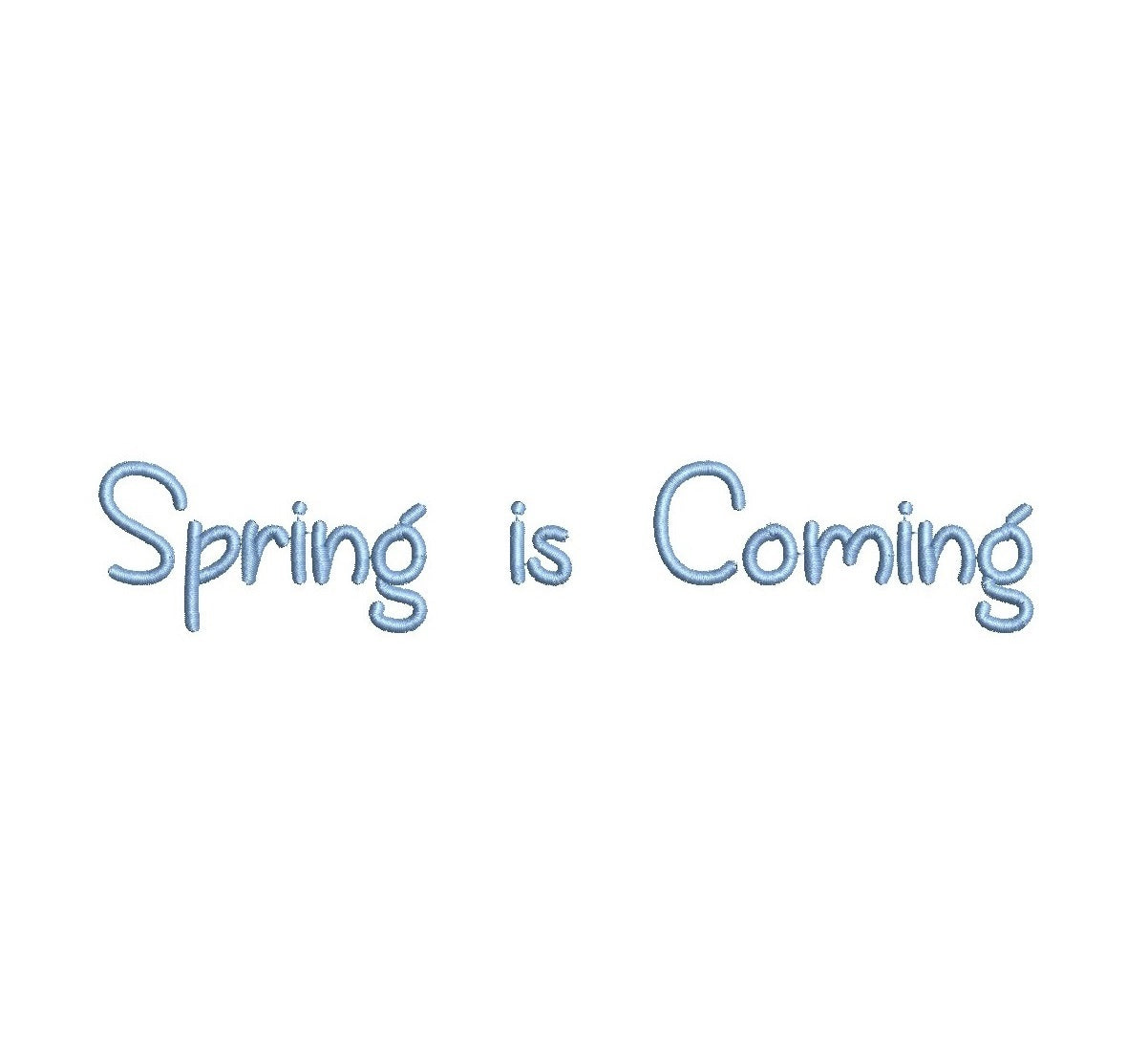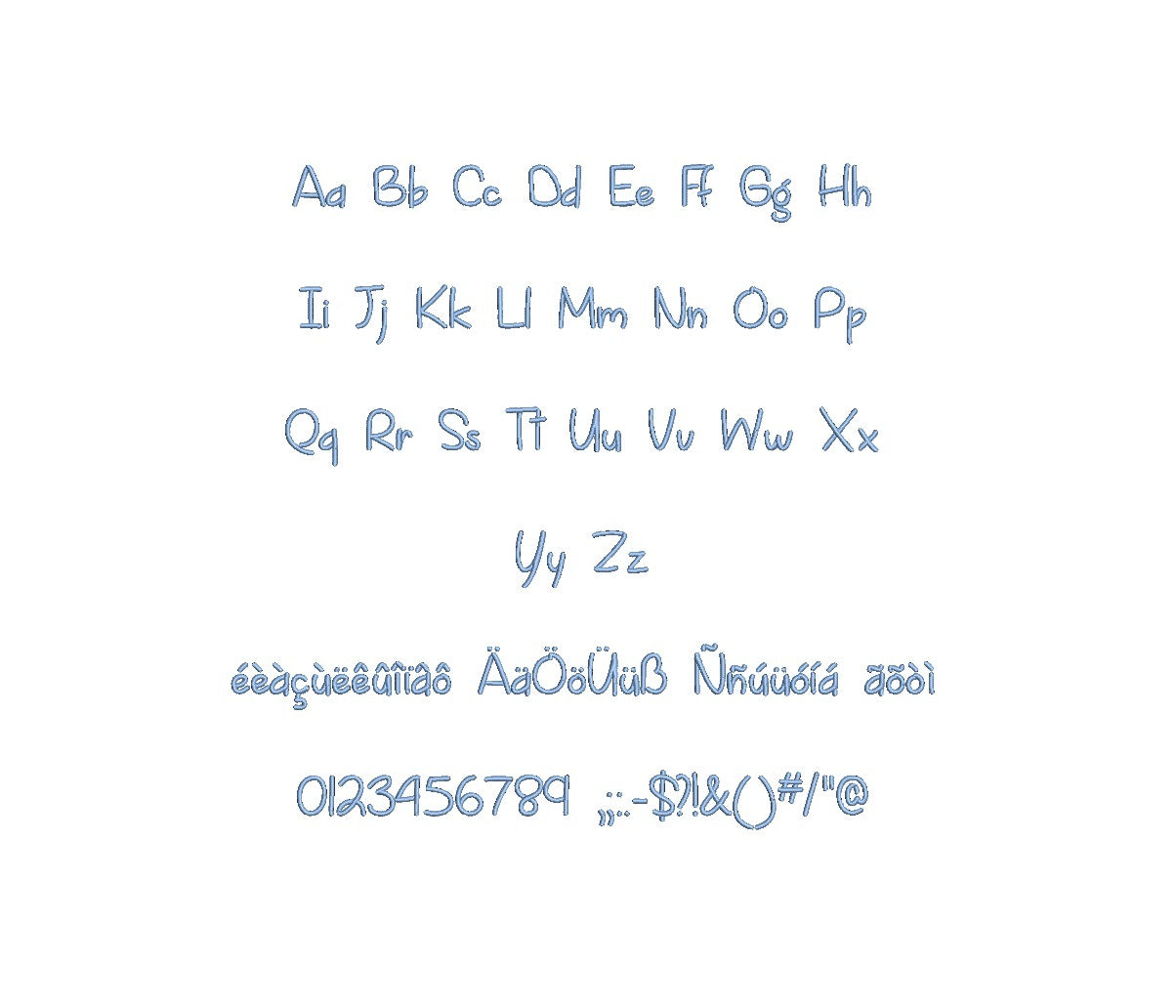
Embrace the vibrant essence of 'Spring is Coming Regular ESA' font, crafted for embroidery enthusiasts seeking fresh and joyful designs. This lively typeface breathes new life into your creations, celebrating the arrival of spring with every stitch. Seamlessly compatible with Wilcom Studio e4.5.6 and Hatch 3 versions and above, it seamlessly integrates into your digitizing workflow. Its playful curves and cheerful lines ensure impeccable stitch quality, elevating your embroidery projects to a level of springtime delight. Ideal for seasonal monograms, quotes, and decorative elements, this ESA font sparks creativity and guarantees a blossoming masterpiece. Embrace the spring spirit with 'Spring is Coming Regular ESA' font today!